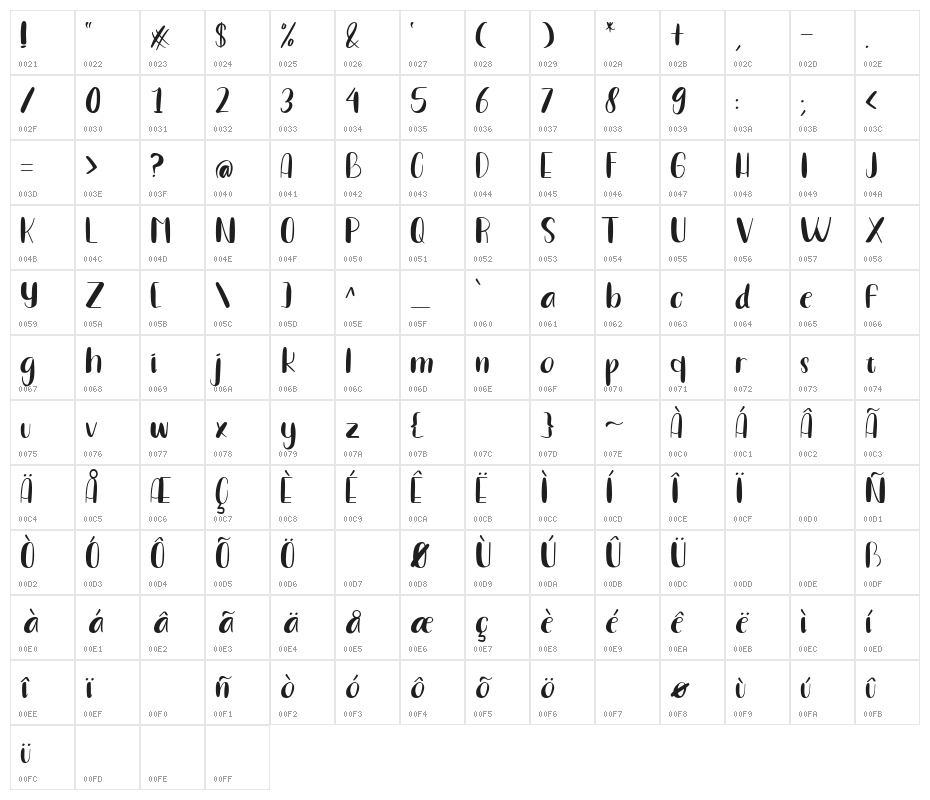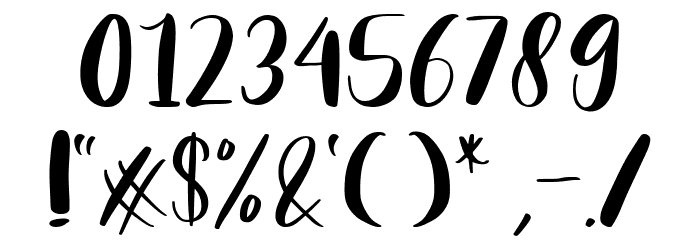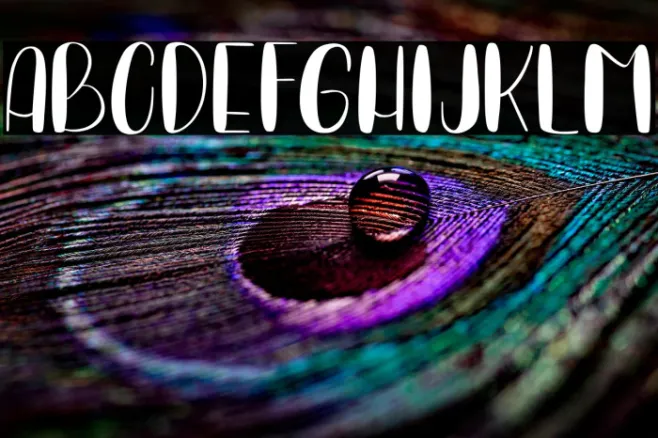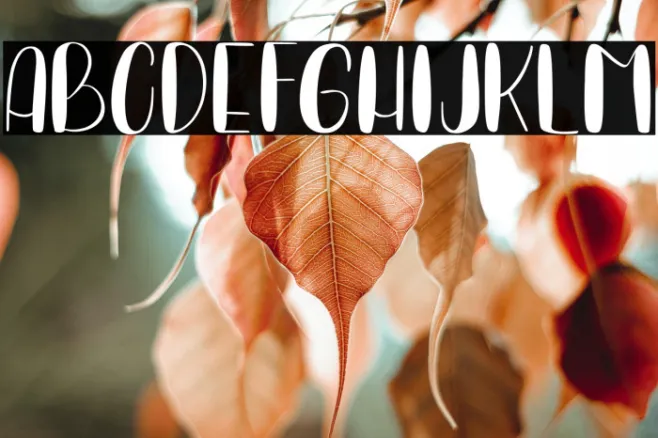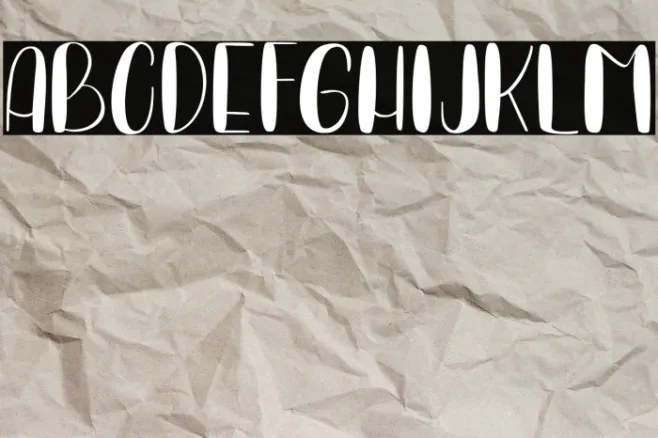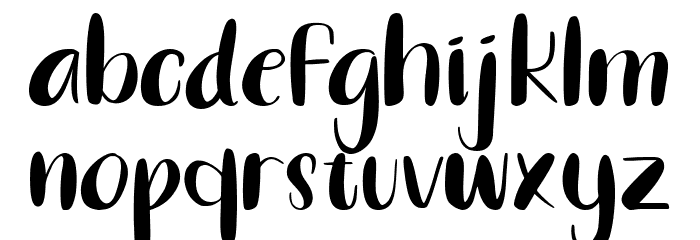
PURPLE MACARONS Font
PURPLE MACARONS Description
This font features a playful and whimsical style with a handwritten appearance. The letters are bold and have a smooth, flowing quality, giving them a lively and energetic feel. The strokes vary in thickness, adding a dynamic contrast that enhances its visual appeal. The uppercase and lowercase letters maintain a consistent style, with rounded edges and a slight slant, contributing to its informal and friendly character. The numerals and special characters are designed to match the overall aesthetic, ensuring a cohesive look across all elements.
| Proposed Projects | Ideal for greeting cards, playful branding, children's books, and creative posters. |